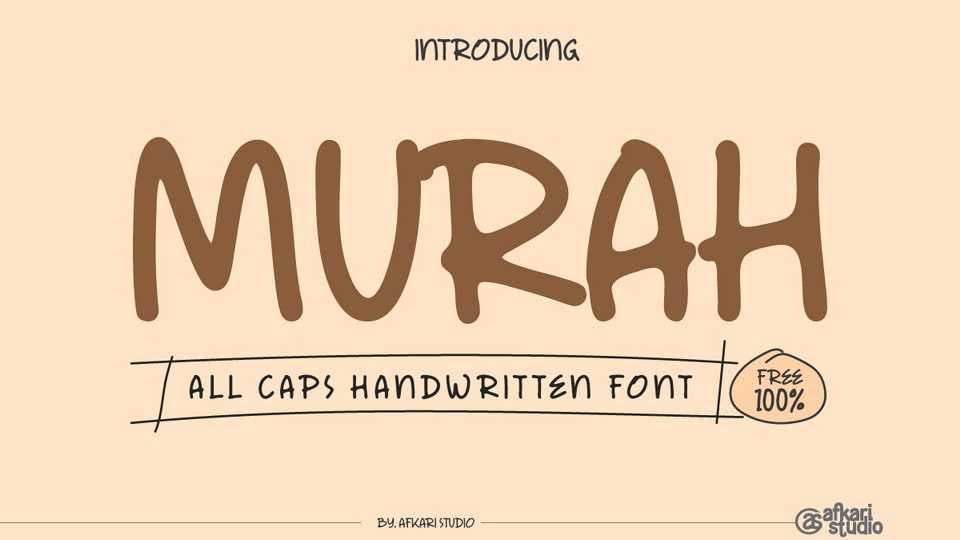
Download Murah font, a fun and quirky handwritten typeface that infuses a burst of personality into every character. Crafted with a whimsical touch, Murah font dances with playfulness, creating a delightful and lighthearted vibe.
Designer: Afkari Studio